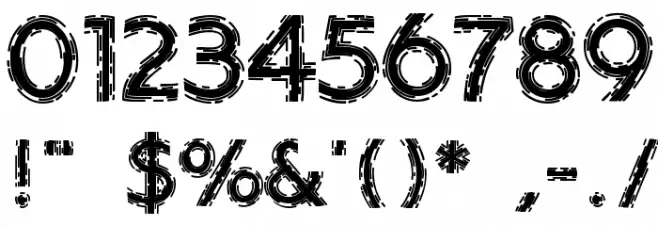
DistroyA Font
DistroyA Description
This font features a distressed, grunge style with a textured appearance that gives it a worn, rugged look. The characters are bold and uppercase, with a consistent height and width, creating a uniform appearance across the alphabet. The rough edges and irregular lines add a sense of movement and energy, making it ideal for designs that require a dynamic and edgy feel. The numbers and special characters maintain the same distressed style, ensuring cohesion throughout any text. This font is perfect for projects that aim to convey a sense of rebellion, urban culture, or vintage aesthetics.
A bold, distressed font with a grunge, textured style from Uncategorized fonts.
- Proposed Projects: Ideal for posters, album covers, streetwear branding, and urban-themed designs.
- Overall Style: Grunge, Urban, Vintage